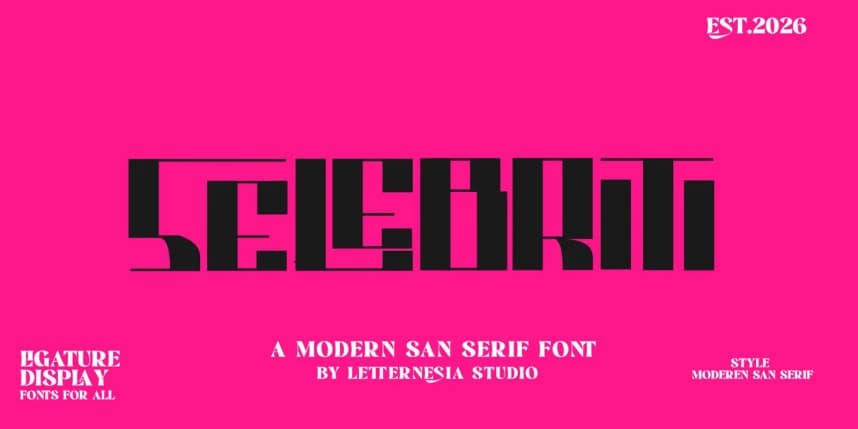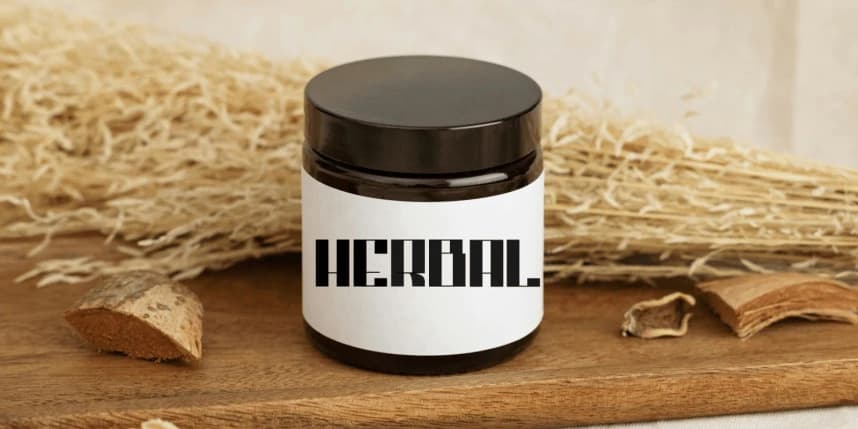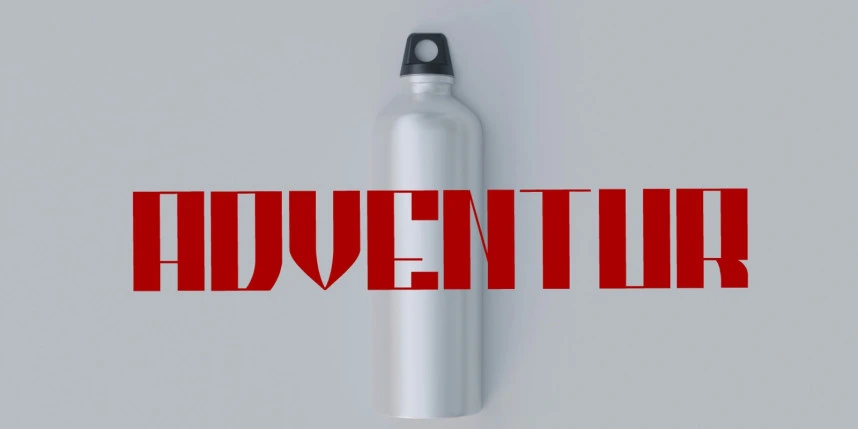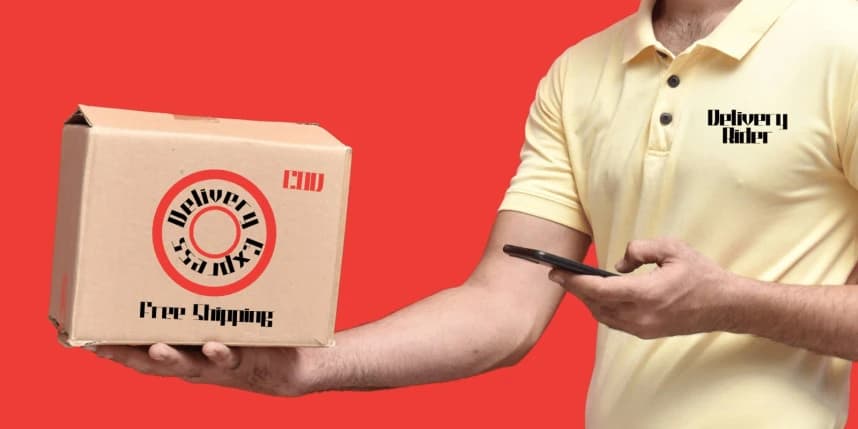
Ls Selebriti Font
SELEBRITI Font is a bold display font designed to stand out with a modern, stylish, and eye-catching character. Inspired by luxury fashion, pop culture, and headline typography, this font delivers a strong visual impact perfect for branding and creative projects.